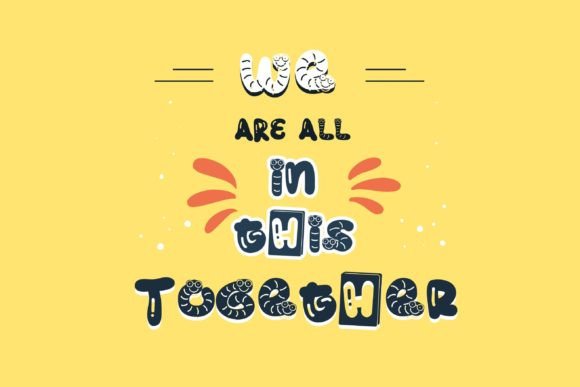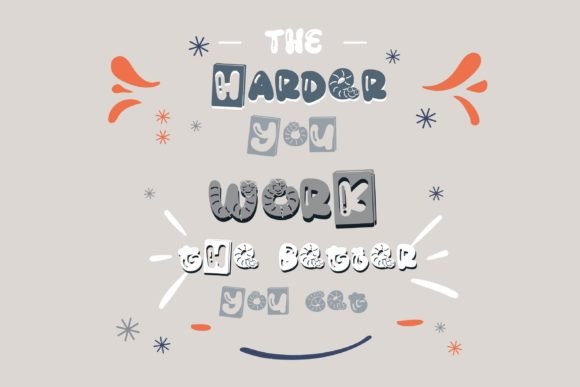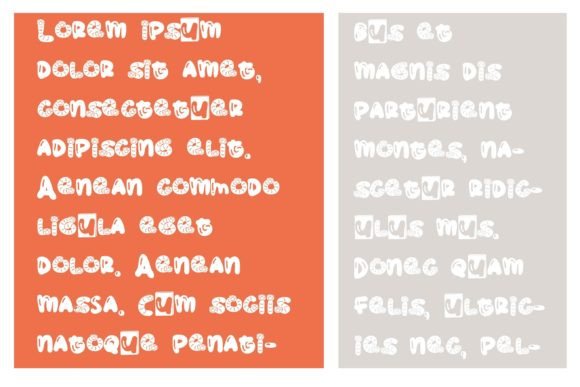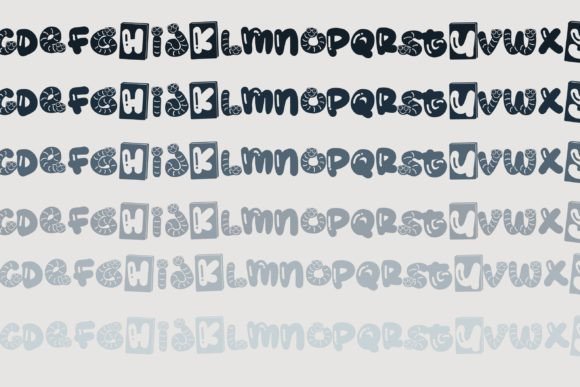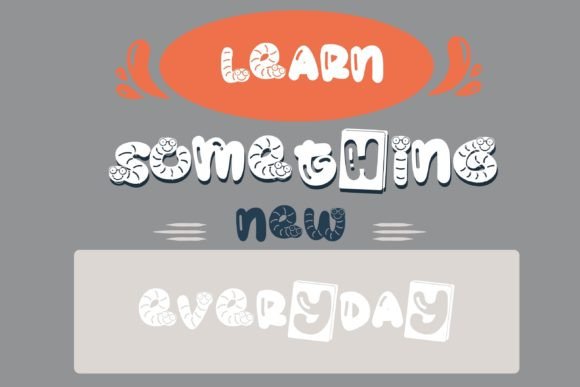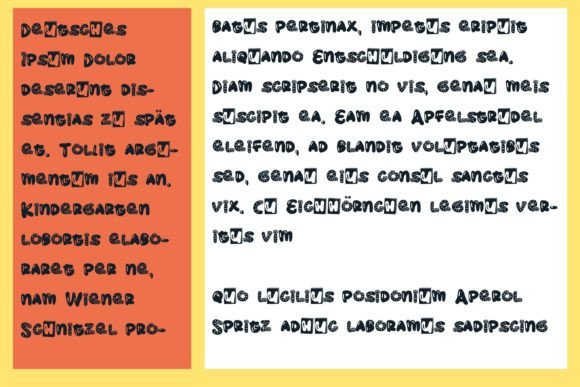
Boozy Bookworm Font
About Boozy Bookworm Font
**Boozy Bookworm** is a delightful and adorable handwritten font that features charming little bookworms and books throughout its design. This whimsical font adds a playful and creative touch to your designs, and you’ll be amazed by the imaginative and delightful outcome it generates.
One of the standout features of Boozy Bookworm is its fun and adorable design, complete with cute bookworm and book illustrations incorporated into the letterforms. Each letter exudes a sense of whimsy and creativity, making this font an excellent choice for projects where you want to infuse a playful and bookish vibe.
Boozy Bookworm’s versatility shines in various design contexts. It is well-suited for crafting educational materials, children’s book illustrations, library signage, book-related promotions, and any project that celebrates the joy of reading and learning. Its charming and creative appearance ensures that your work is engaging and filled with character.
In educational materials, Boozy Bookworm adds a touch of whimsy and encourages a love for learning, making your content more appealing to young learners.
For children’s book illustrations, this font brings a sense of enchantment and imagination, enhancing the storytelling experience.
In library signage and book-related promotions, Boozy Bookworm infuses a sense of joy and celebration of literature, making your messaging more engaging and inviting.
Boozy Bookworm is a font that celebrates the world of books and learning in a fun and adorable way. Whether you’re creating educational materials, illustrating children’s books, or promoting library events, Boozy Bookworm can be your go-to font for adding a playful and book-loving vibe to your creative work.